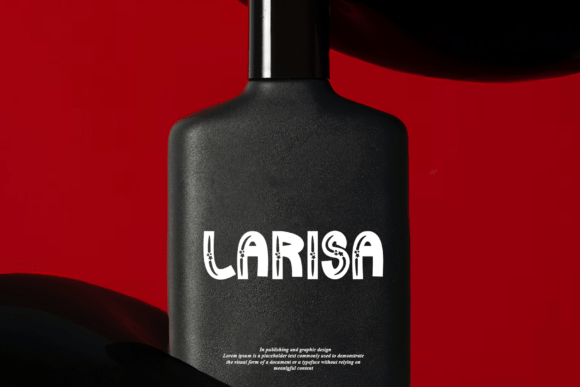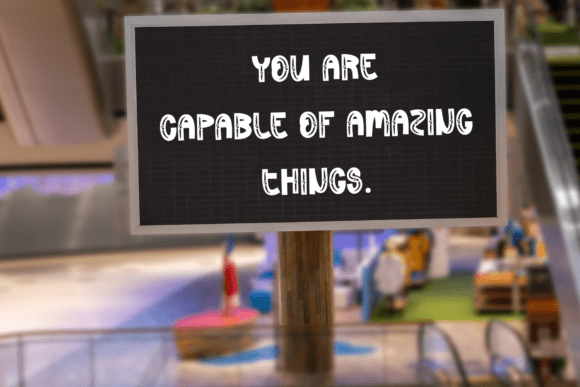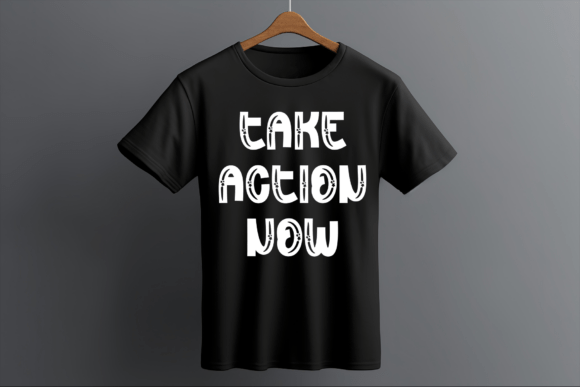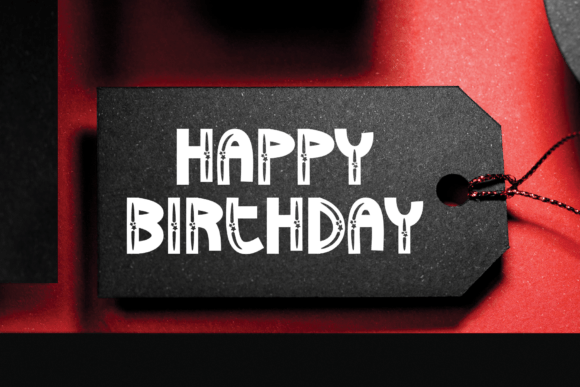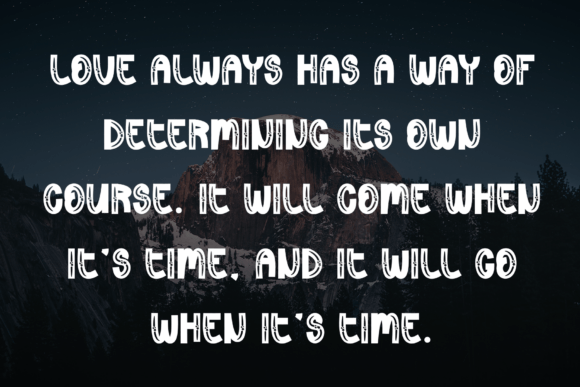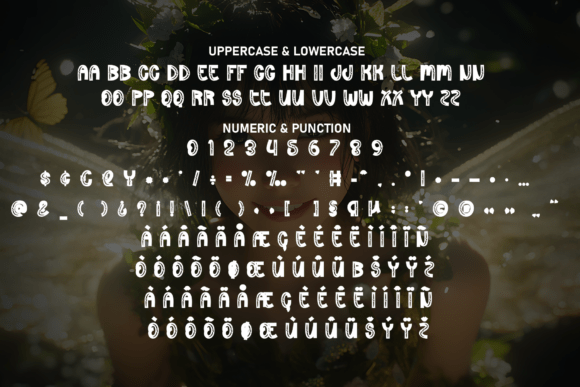
Introducing Beauty Enchant Font: Elevate Your Designs with Elegance and Creativity
Are you a designer, crafter, or creative enthusiast looking for a unique and captivating font to elevate your projects? Look no further than the Beauty Enchant Font, a stunning and versatile typeface designed to add a touch of elegance and whimsy to your designs. In this article, we’ll explore the features and benefits of this exceptional font, and how it can help you create extraordinary experiences for your audience.
Unleash Your Creativity with Beauty Enchant Font
The Beauty Enchant Font is a special creative product that offers a fresh and exciting way to express yourself through your designs. With its latest style letters, this font is perfect for a wide range of applications, including wall displays, wedding invitations, social media post logos, advertisements, product packaging, product designs, labels, photography, watermarks, invitations, stationery, and any project that requires tasteful handwriting.
The Beauty Enchant Font offers endless possibilities for creative expression. With its unique and captivating lettering style, you can add a touch of elegance and sophistication to any design project. Here are just a few ideas to get you started:
- Create stunning wall displays and signage that grab attention.
- Design beautiful wedding invitations, save-the-dates, and ceremony programs.
- Elevate your social media presence with eye-catching logos and graphics.
- Craft compelling advertisements and marketing materials that drive results.
- Develop product packaging and branding that stands out on store shelves.
- Add a personal touch to your product designs, labels, and photography.
Why Choose Beauty Enchant Font?
So, what sets the Beauty Enchant Font apart from other fonts on the market? Here are just a few reasons why designers and crafters love this font:
- Unique and captivating lettering style that’s sure to turn heads.
- Versatile and adaptable, suitable for a wide range of design applications.
Get Ready to Fall in Love with Beauty Enchant Font